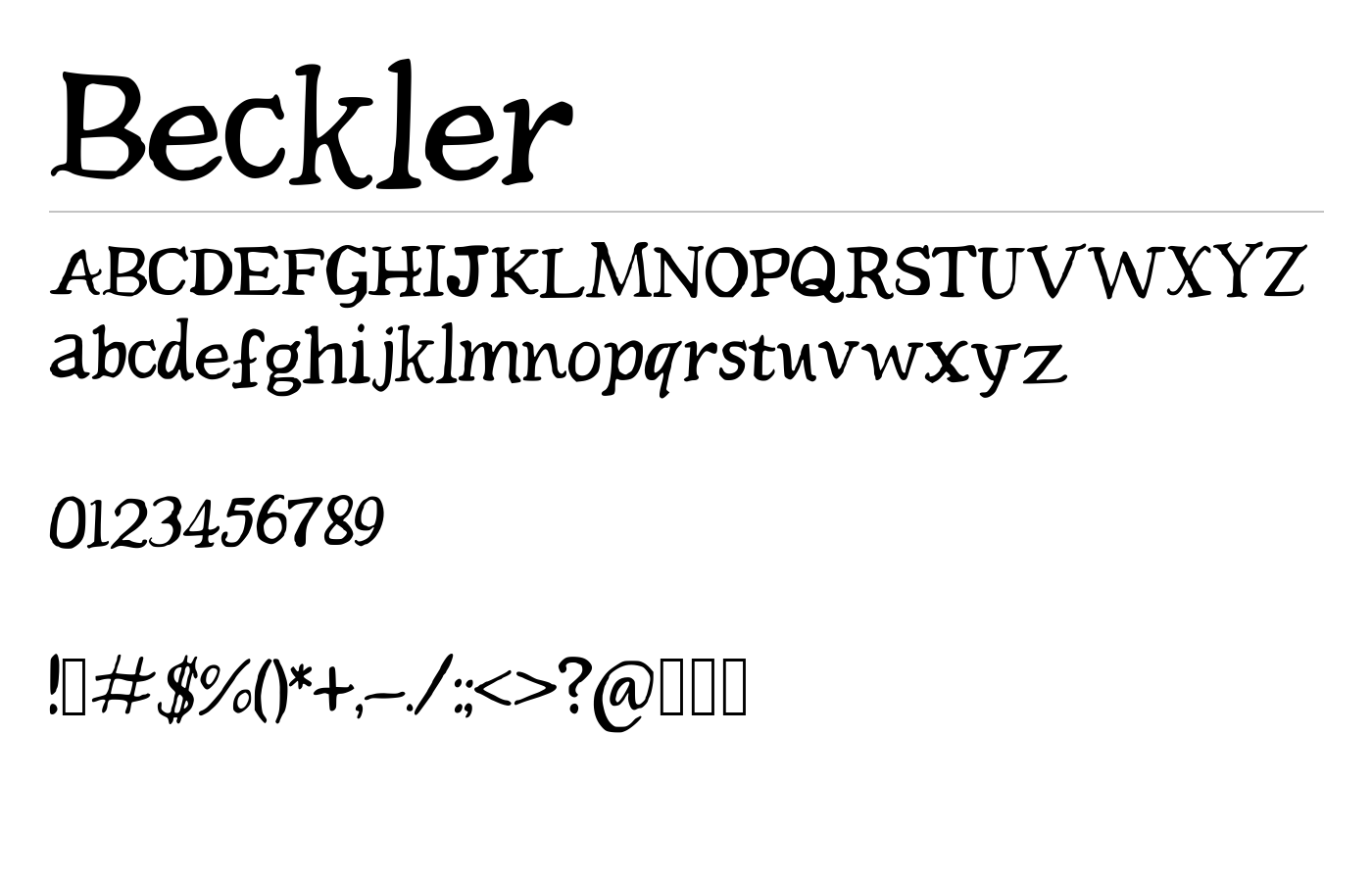
Beckler is a charming serif font with a hand-crafted feel, featuring uneven strokes and slight irregularities that give it a unique, organic personality. Its medium weight and moderate contrast make it highly readable, while the playful, slightly whimsical letterforms bring warmth and character, ideal for creative projects, invitations, or branding that wants an approachable yet artistic look. This font works well in headlines and decorative uses where a touch of handcrafted elegance is desired.
Beckler Font
About Beckler Font